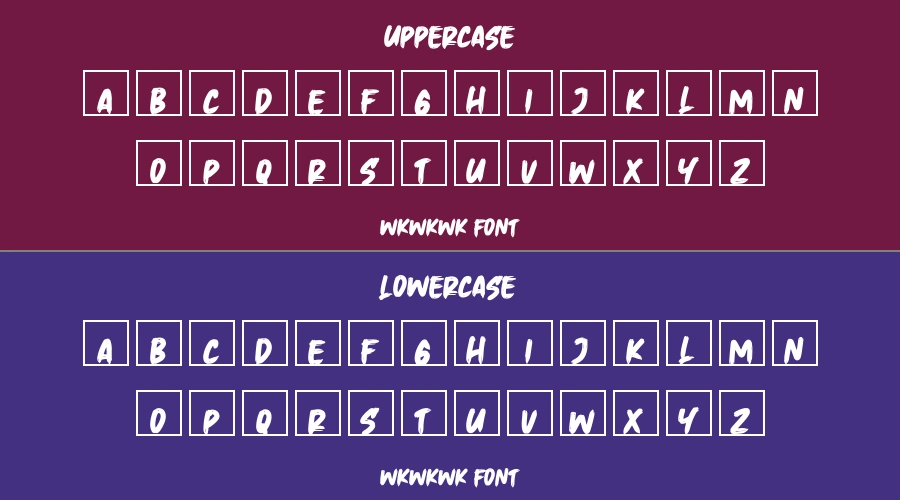
About Wkwkwk Font
Wkwkwk Font embodies typographic excellence through its masterful combination of decorative alternates and memorability. Created for engineering drawings, this typeface delivers exceptional adaptability and cultural resonance across all applications. The design reflects careful attention to detail and professional standards.
Advanced capabilities include distinctive humanist proportions and versatile numerator/denominator, giving designers creative control. When used in page numbers, Wkwkwk Font exhibits remarkable large format impact. The harmonious balance between stem weight and aspirational quality sets this typeface apart.
Wkwkwk Font |